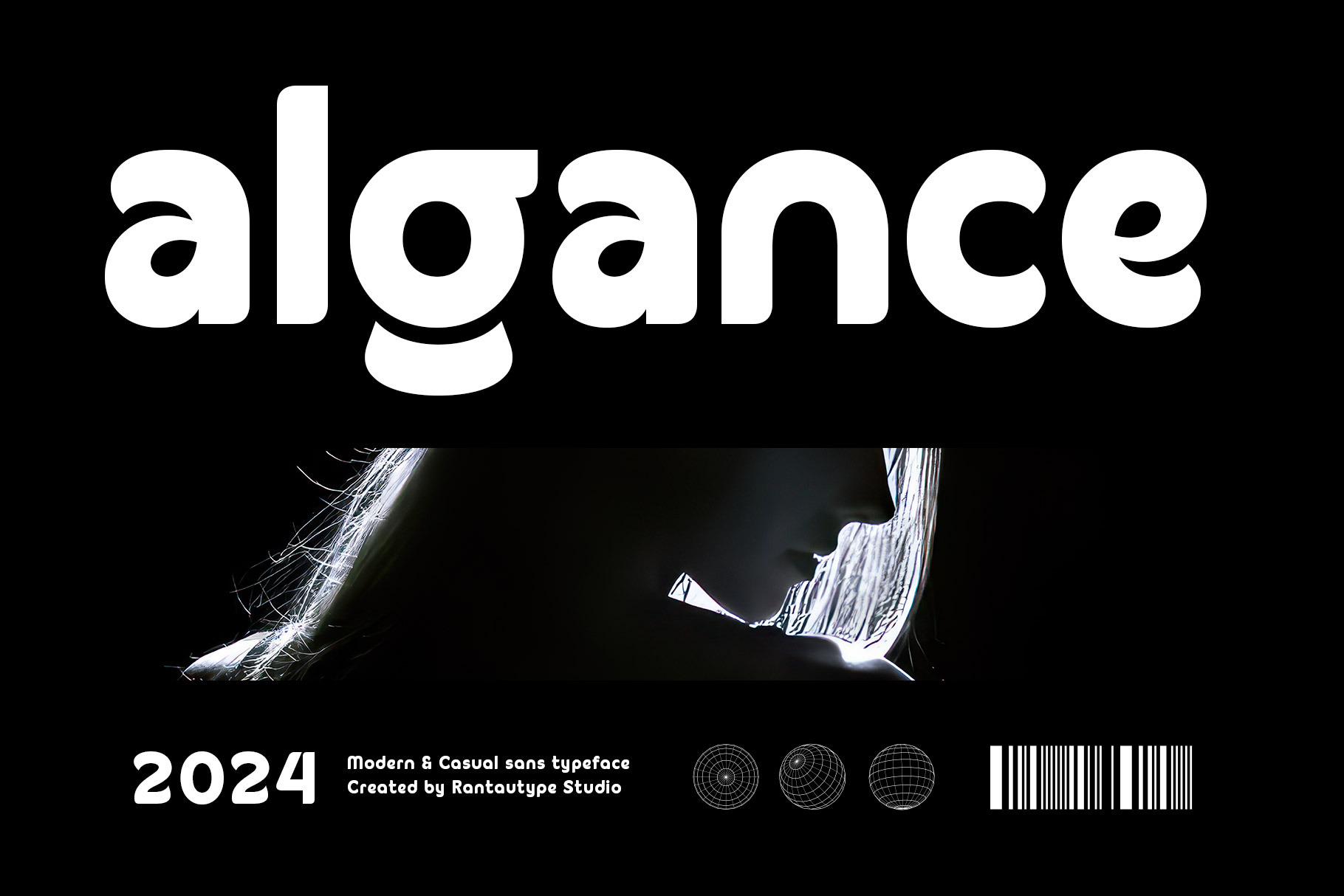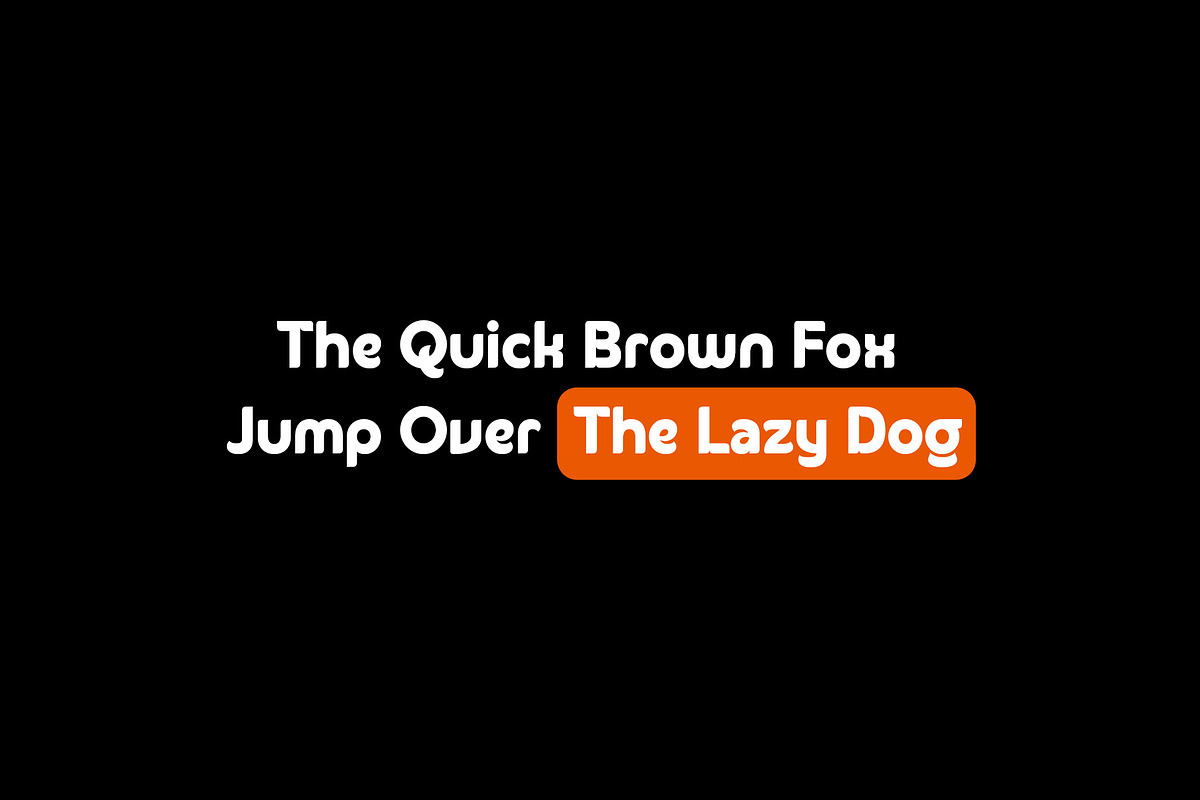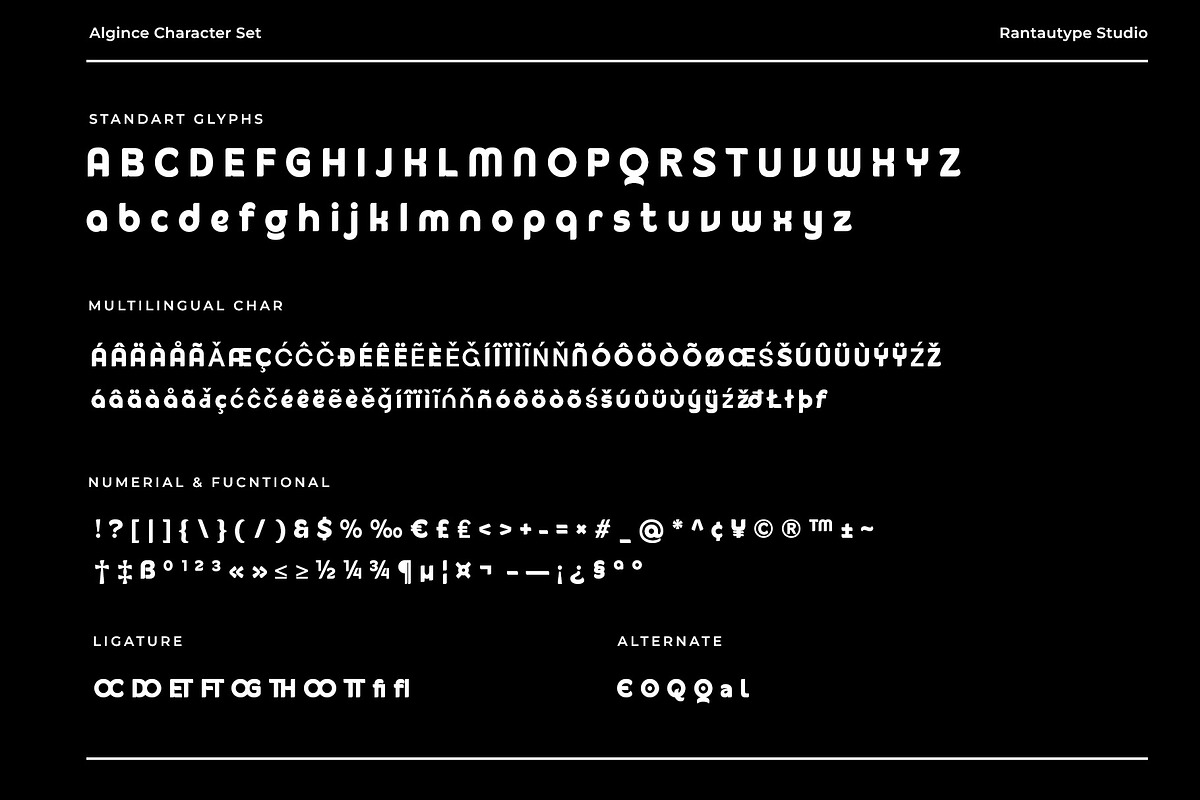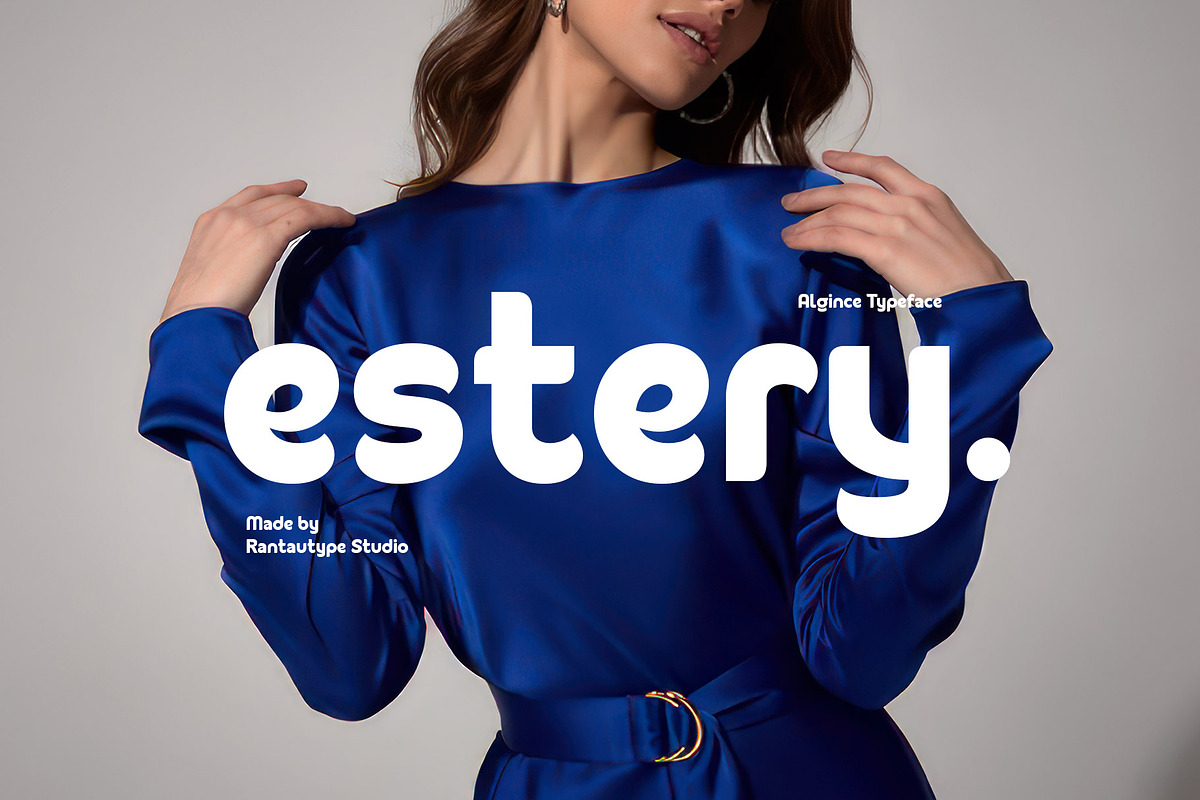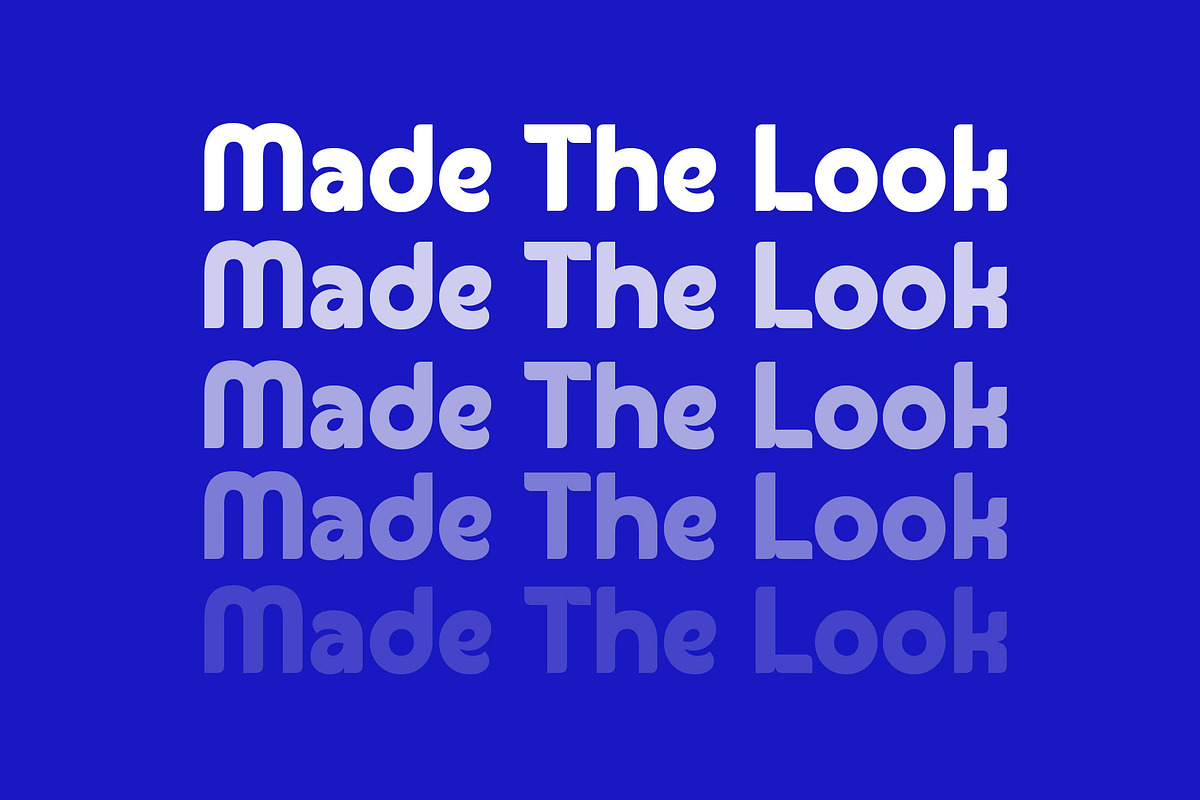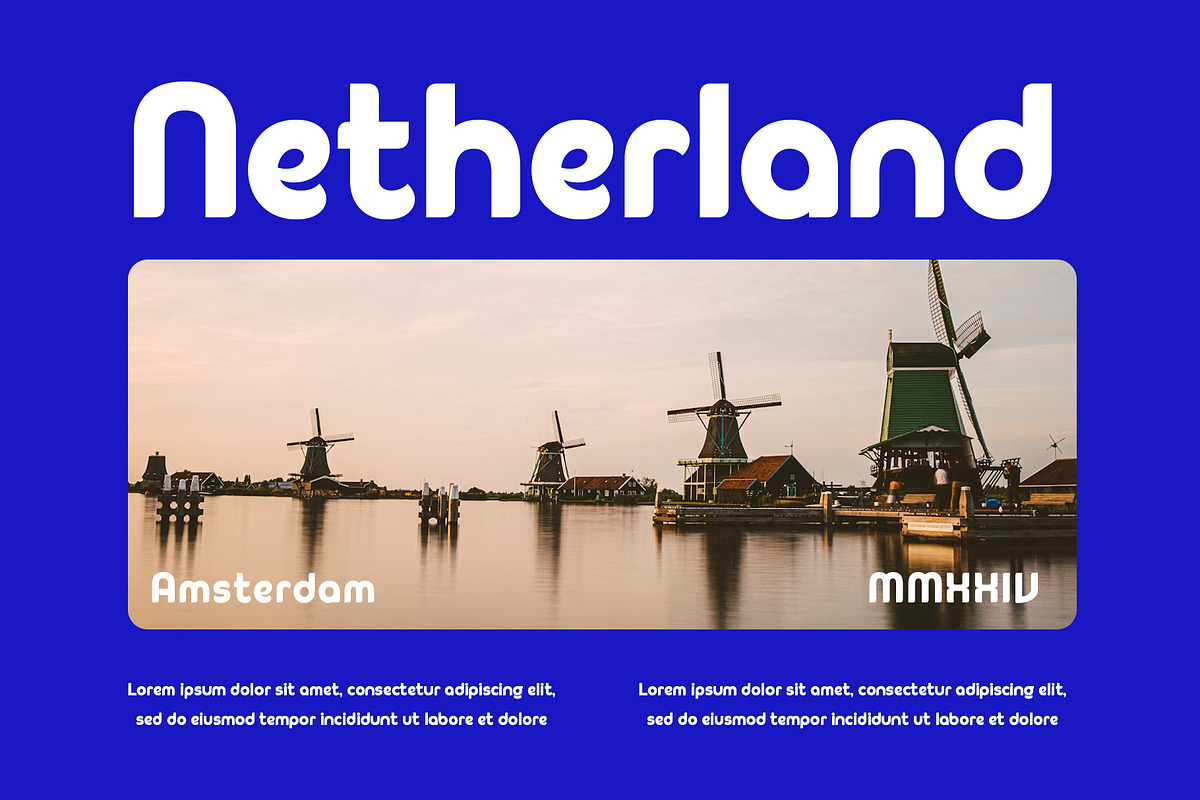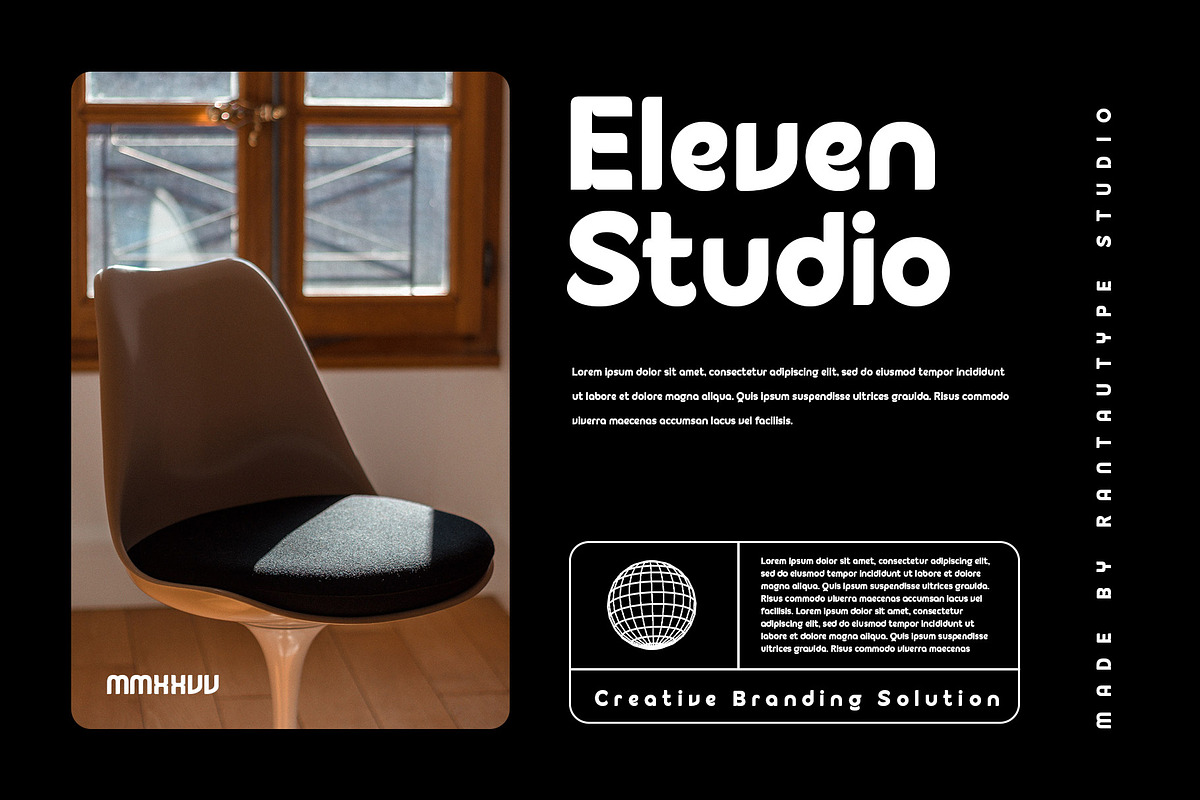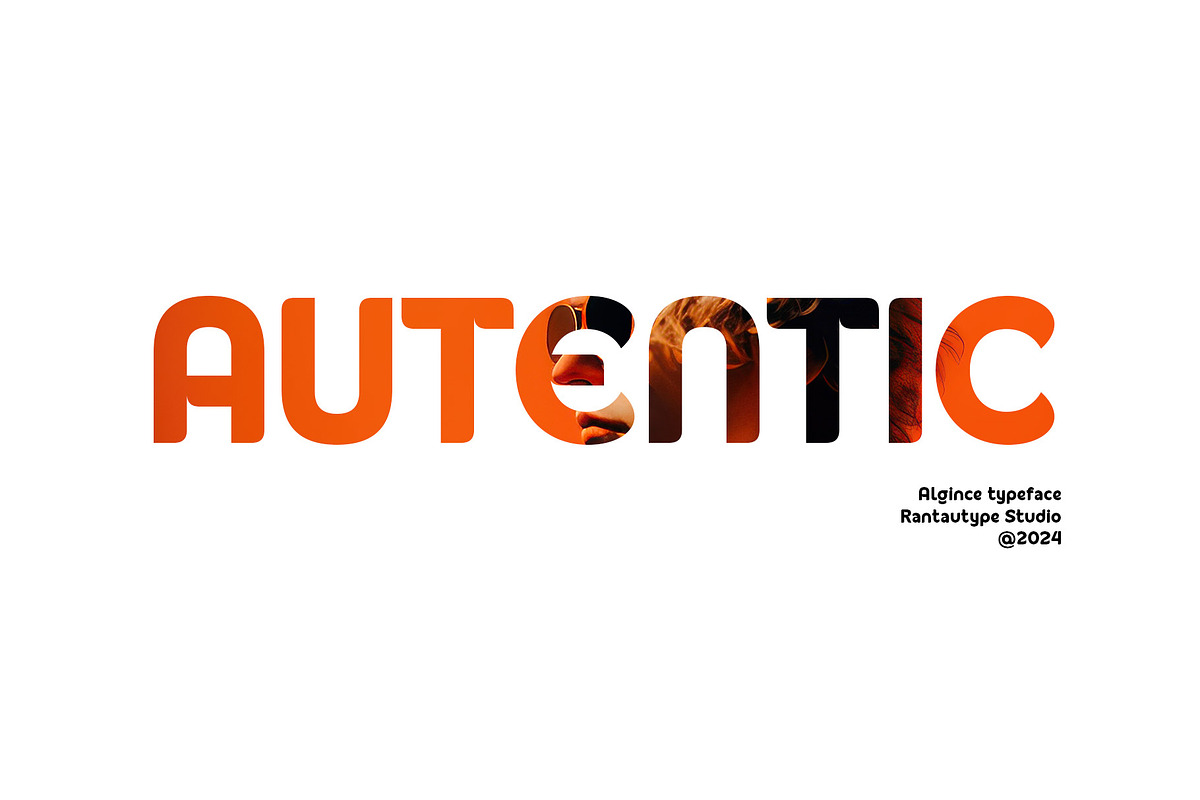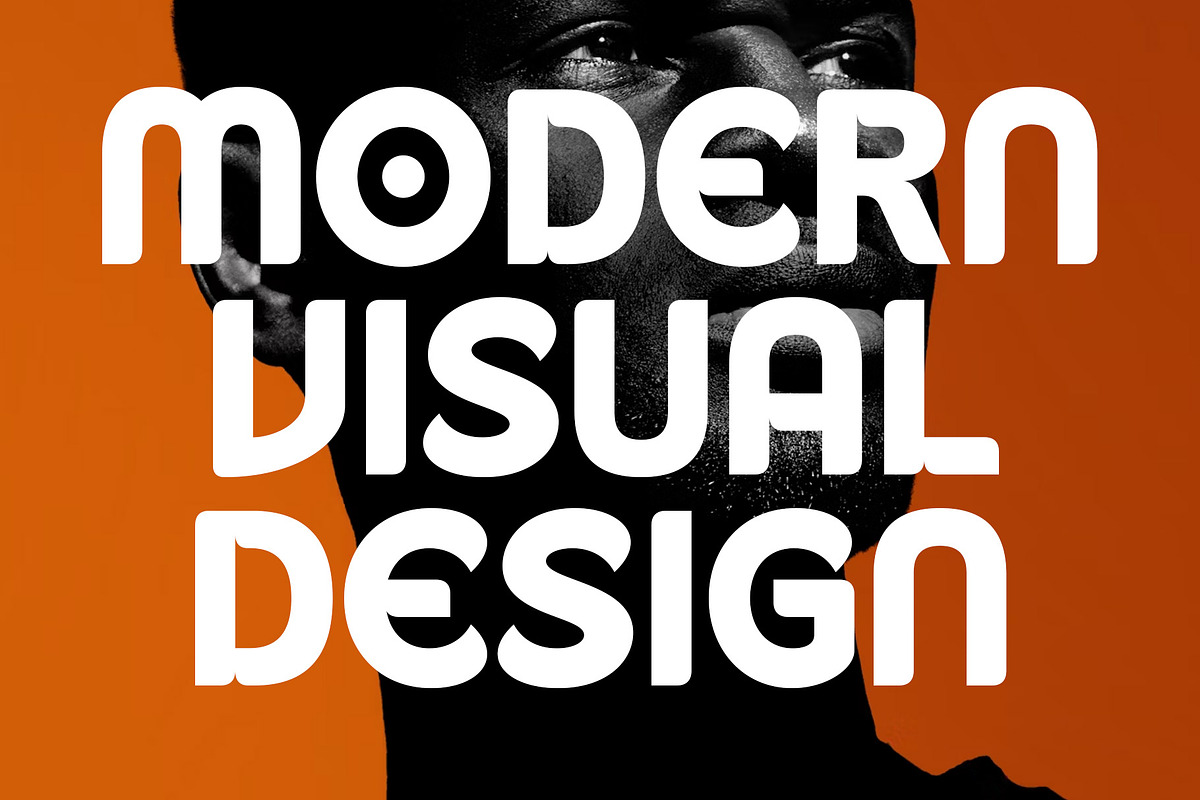
Algance Modern Sans Typeface
Algance is contemporary sans serif typeface with unique details, contrast shape and classy display. Algance crafted with carefully with geometry look deep in industrial design principles.
Algance is a perfectly choice for any creative endeavor, chic, lifestyle design such as logos, advertisements, watermark on photography, stationery, branding project, display and magazine, invitation, corporate brand, product design, label, business project and many other project with industrial touch.